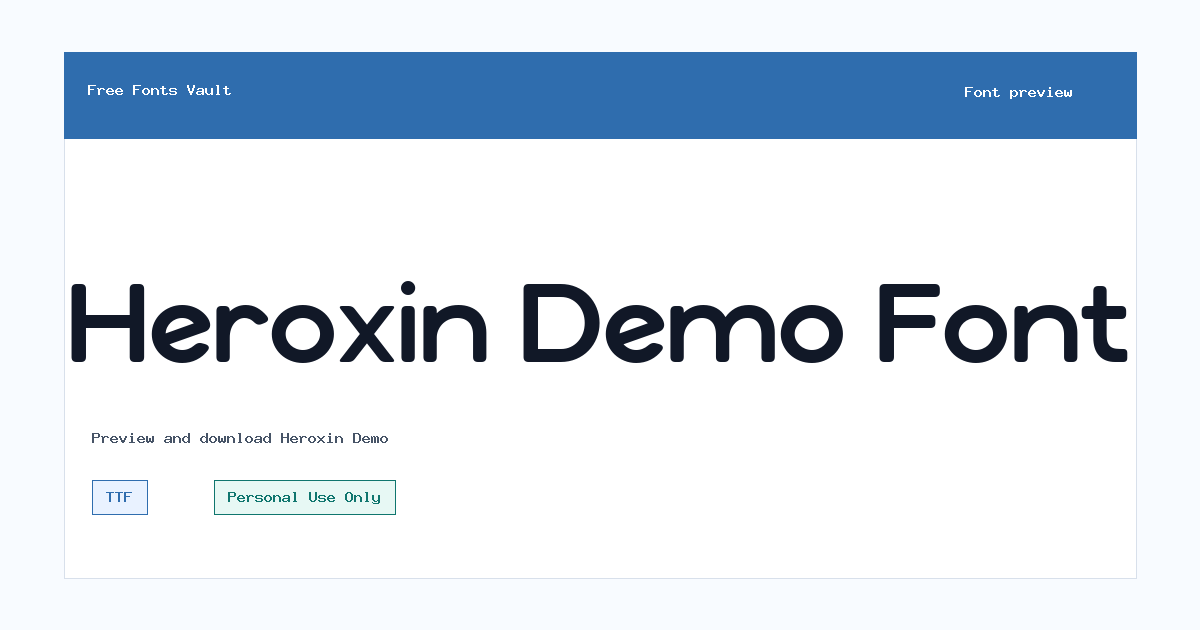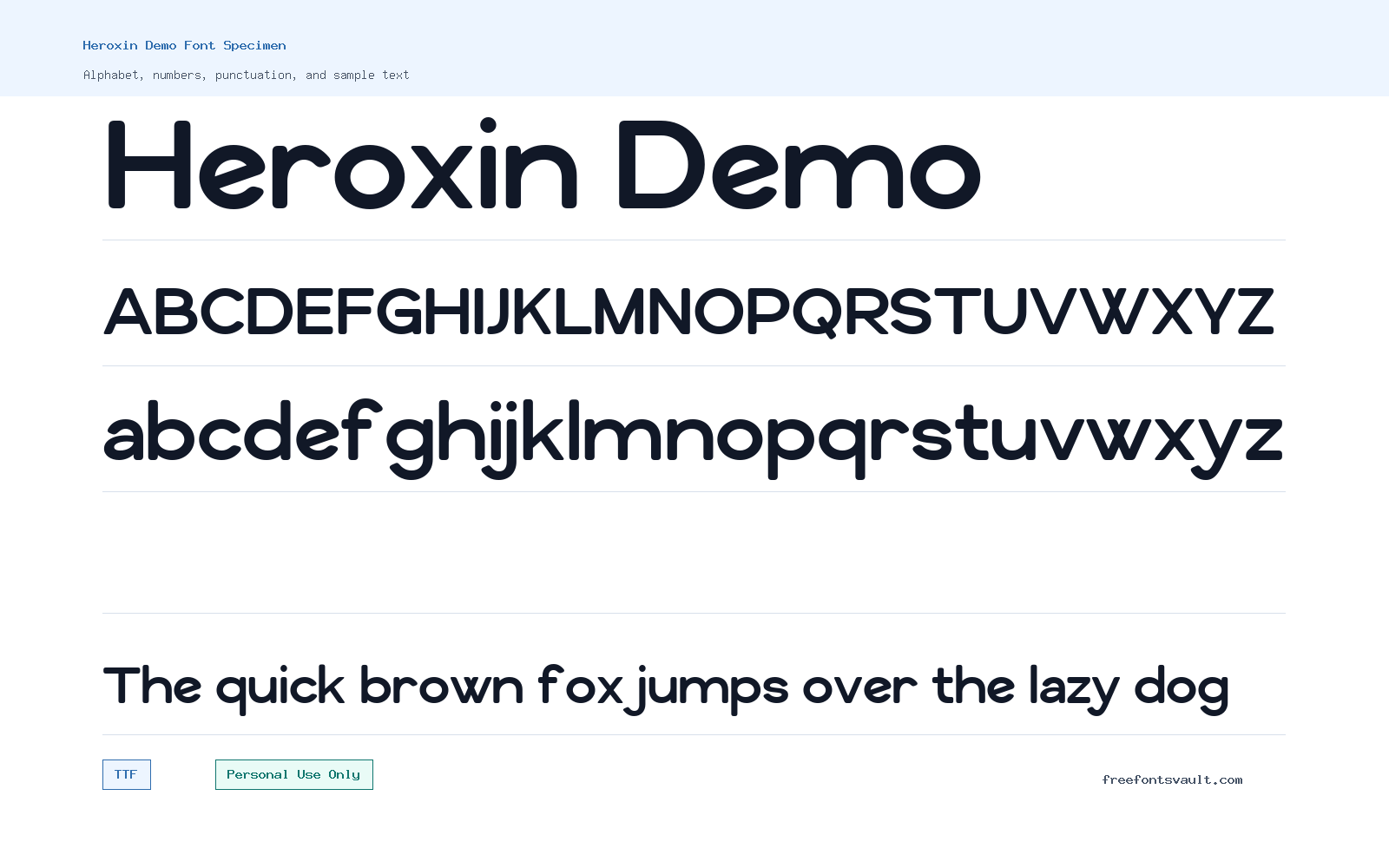
Heroxin Demo
Heroxin Demo font preview showing the family name
Heroxin Demo Font
Heroxin Demo font specimen showing alphabet, numbers, and sample text
Heroxin Demo font.
Heroxin Demo is a personal-use sans serif font from Ragamkata Studio. It comes as a regular TTF style, making it easy to install, preview, and test in common design apps.
About Heroxin Demo
Heroxin Demo is best approached as a display-friendly sans serif for testing short pieces of text rather than building a full production identity around it right away. The family name and license label identify it as a sans serif font, and the downloadable file is a regular 400-weight TTF. That gives you a straightforward starting point for trying headings, nameplates, social graphics, poster text, and simple web layout mockups. Because only a regular style is listed, it is worth checking how it behaves without extra weights such as bold, light, italic, or condensed companions. If your design needs a full type system, Heroxin Demo may work better as a headline or accent choice paired with a more complete text family.
Use the preview tool to test the exact words you plan to design with. Sans serif display fonts can look strong in a title but feel different once you add punctuation, numbers, mixed case, or longer phrases. Try your brand name, a poster headline, a short button label, and a few sample lines with letters such as A, R, S, G, O, a, e, and t. Also check spacing between common letter pairs before using it in a logo draft. For posters and thumbnails, keep the text short and give the letters enough breathing room. For web mockups, test it at several sizes and compare it with a neutral body font so the main message stays easy to read.
• Sans serif font family identified as Heroxin Demo
• Suited to testing short headings, mockups, poster text, and display layouts
• Logo concepts and brand name sketches for non-commercial presentation
• Poster headlines, event mockups, and title graphics
• Website hero text experiments and landing page drafts
• Social media image tests, quote cards, and thumbnail layouts
• Typography pairing studies with a neutral serif or readable sans serif body font
Is Heroxin Demo good for body text?
It may be better for short text and display use. Test longer paragraphs carefully, because only a regular style is listed and display-focused sans serifs are not always ideal for extended reading.
What should I pair Heroxin Demo with?
Pair it with a simple, readable body font. A neutral sans serif can keep a modern look, while a plain serif can add contrast without competing with the heading style.